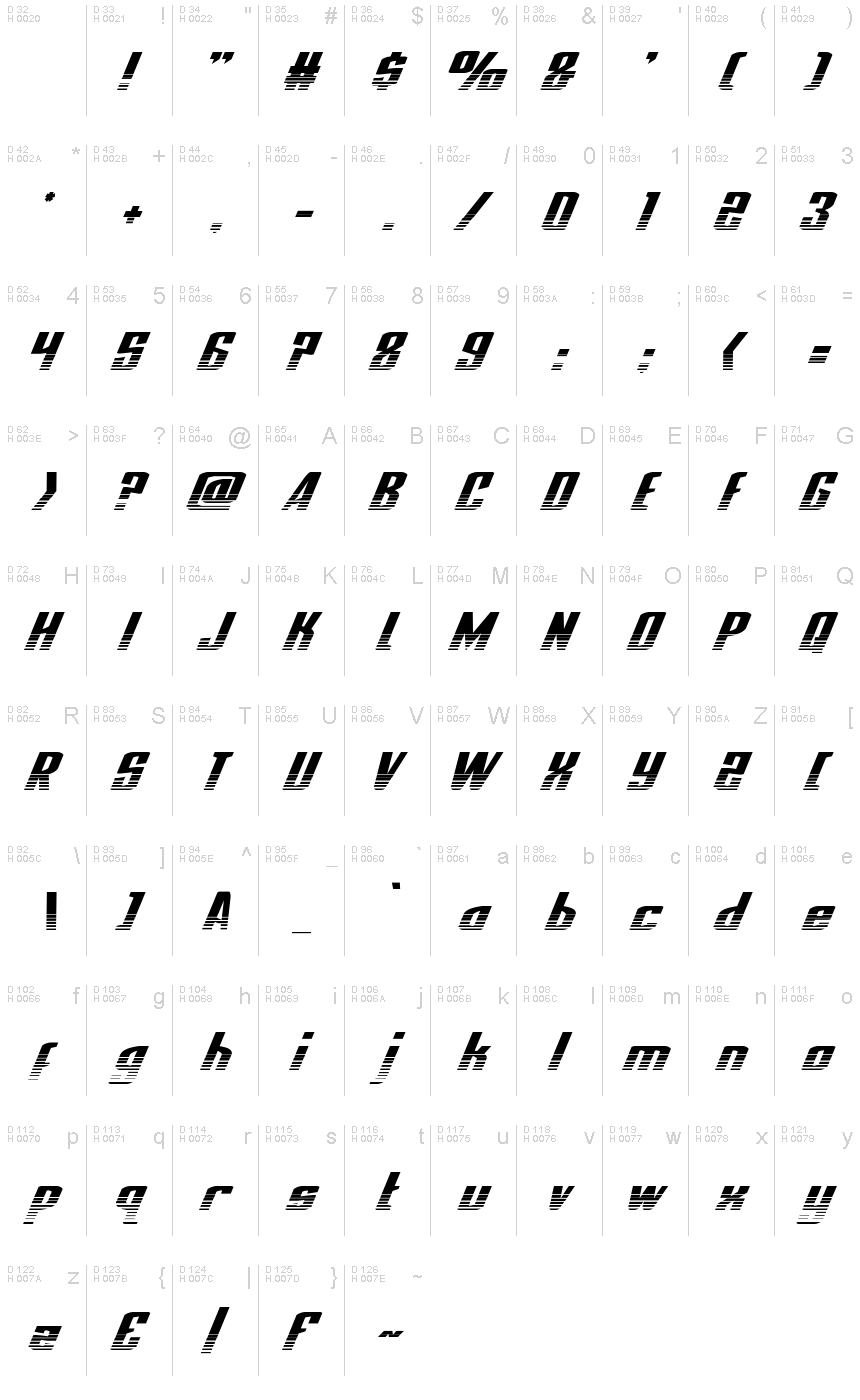
National Express Halftone Ital
National Express Halftone Italic, a display font from the National Express family designed by Iconian Fonts, embodies a techno aesthetic with its bold and striking condensed width.
Visually engaging, this font features a distinctive halftone pattern that adds depth and a modern edge to any text. Its sleek, italicized form lends itself well to dynamic and futuristic designs, making it ideal for innovative branding projects, tech-related publications, or any scenario where you need to convey cutting-edge sophistication.
National Express Halftone Italic stands out as an excellent choice for eye-catching headlines, posters, and digital graphics where its unique style can truly shine. Embrace the future of typography with this exceptional font that promises to elevate your design projects with its powerful visual appeal and contemporary flair.